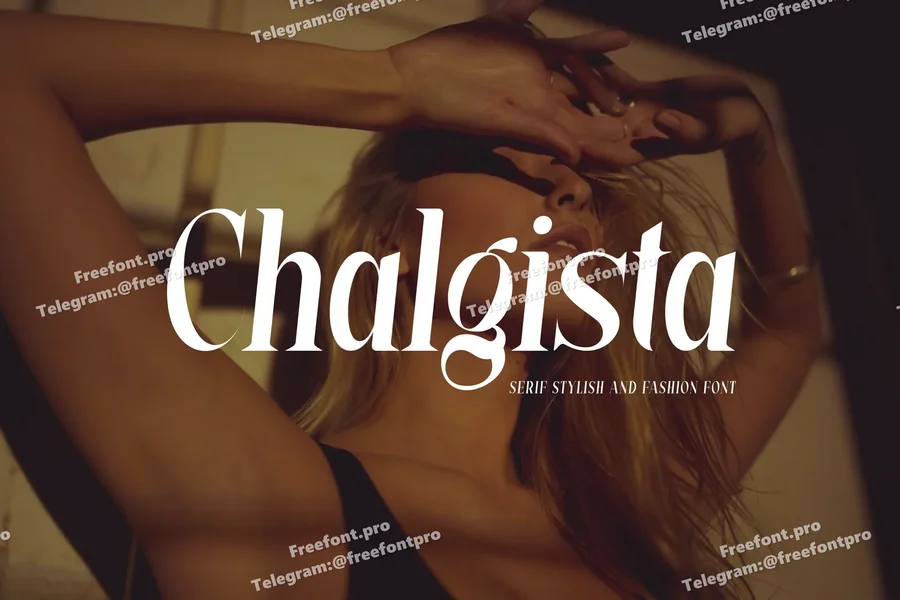
Chalgista – Serif Stylish And Fashion Font
Introducing our new product Chalgista Font – Modern Font
Chalgista Font- Modern Font is a bold and authentic display font. The font is suitable for any branding project like logo, esport, and many more. outstanding in a wide range of contexts.